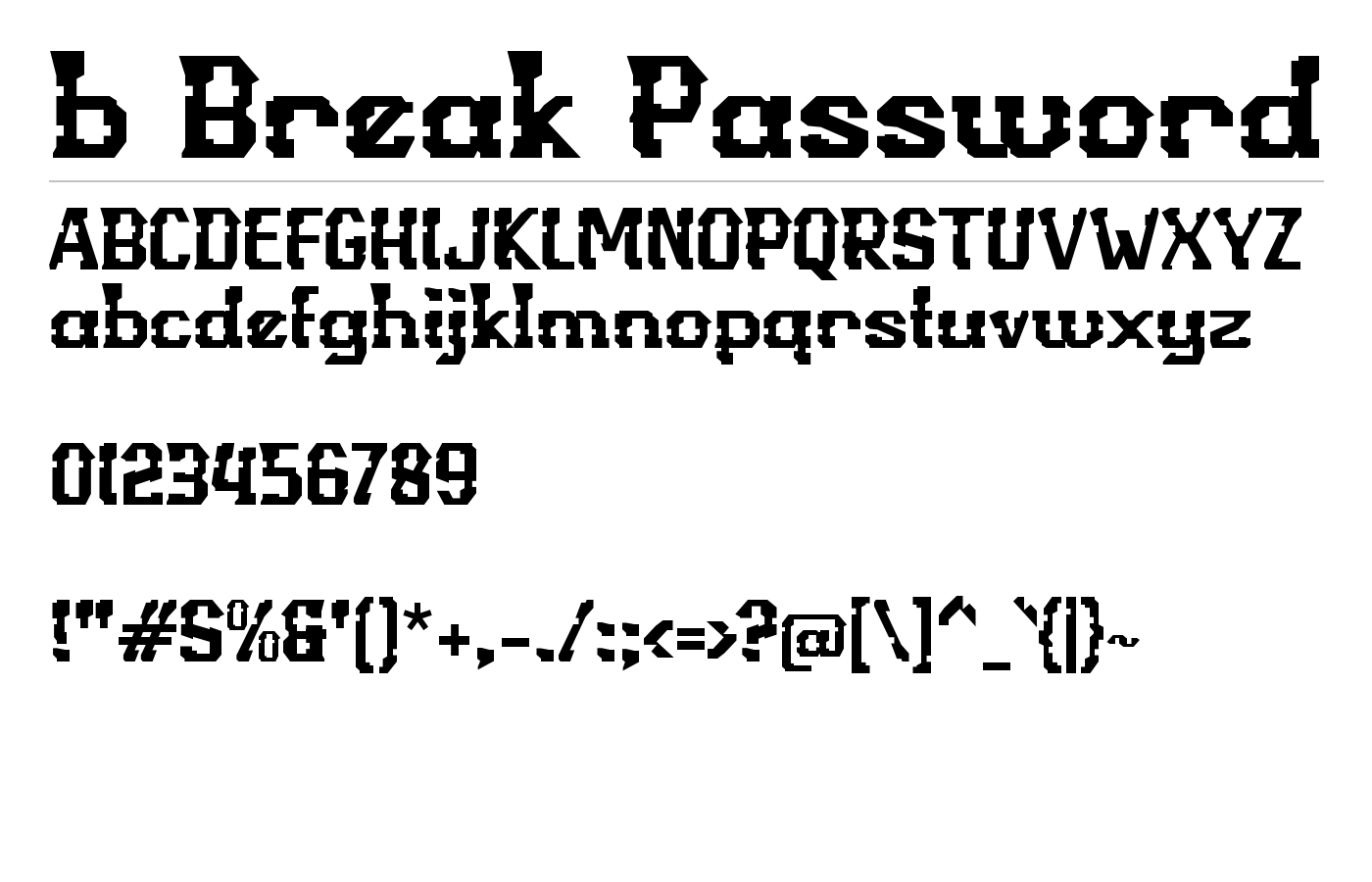
b Break Password is a bold, slab serif font with a strong, geometric structure and high stroke contrast that creates a rugged, almost mechanical feel. Its condensed width and sharp, blocky serifs give it a vintage industrial style, making it ideal for eye-catching headlines, posters, and branding that seek a tough, authoritative vibe. This font works well in designs where a bold, impactful statement is needed, especially in industries like security, technology, or retro-themed projects.
b Break Password Font
About b Break Password Font